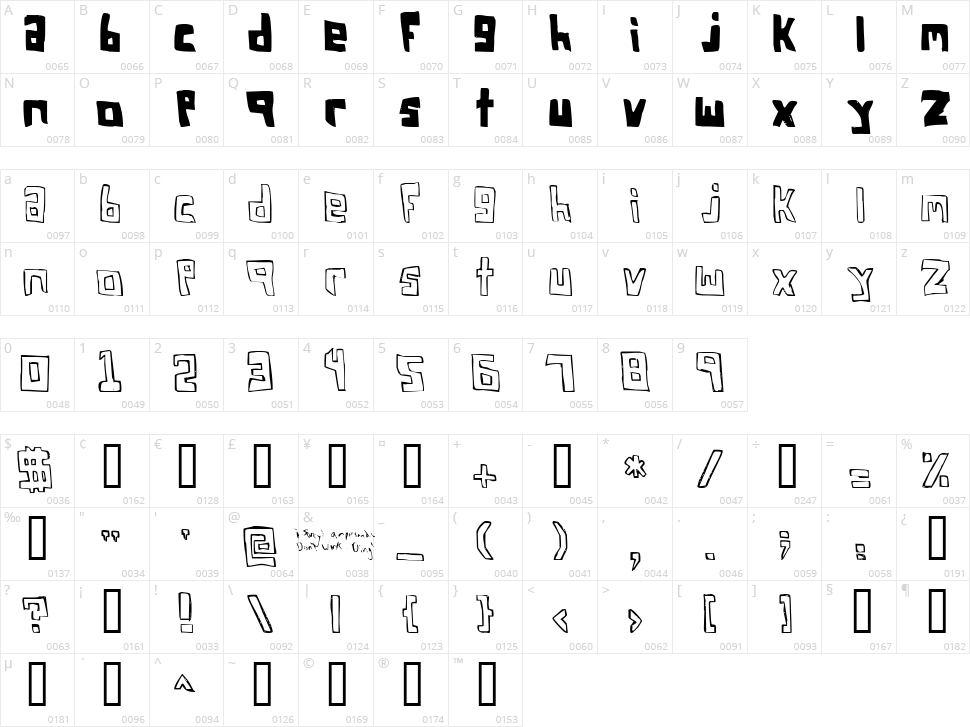
FSO Square Bracket
| "square bracket" [ # 12 ] |
| created on 07.15.99 |
| using sharpies, pilot pens, and my scanner. |
| square bracket originated in never named. i liked |
| the style so i made it a font. the end. |
| this was made by jeff george and/or inpheaux. i |
| say this not because i'm schizophrenic, but because |
| saying some shite like jeff "inpheaux" george just |
| doesnt seem right, and i've just gotten so lax about|
| my handle. |
Designer Name: Jeff George